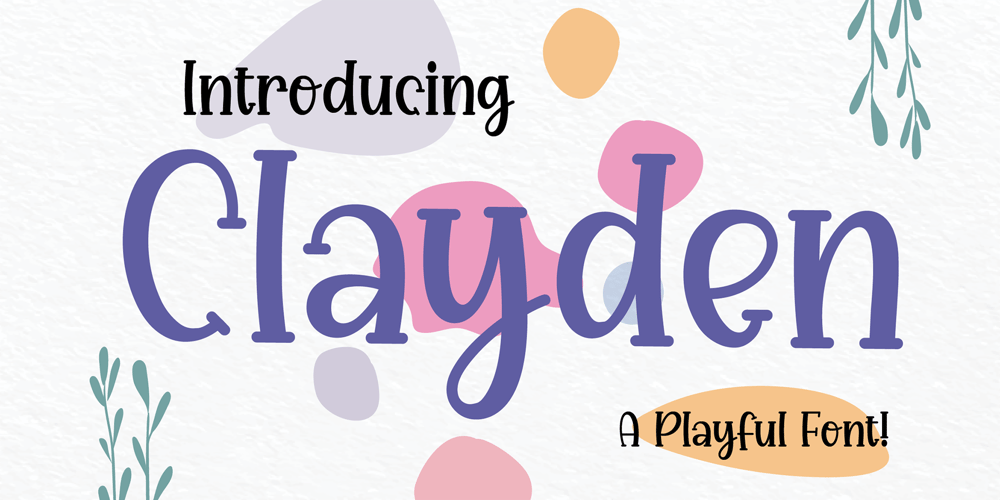
Clayden
Clayden font
Clayden Font Family was designed by Heri Imanudin and published by Krafted. Clayden contains 1 styles and family package options. If you’re after a font for a birthday party invitation or a children’s book cover, you shouldn’t settle for something bland and generic. Instead, why not aim for a fun and lively option to set the mood? Introducing Clayden – A Playful Font.A lovely font like this can be used for invitations, branding, print, clothing, social media, web pages, and much, much more.What you’ll get: Multilingual & Ligature Support Full sets of Punctuation and Numerals Compatible with: Adobe Suite Microsoft Office KeyNote Pages Software Requirements: The fonts that you’ll receive in the pack are widely supported by most software. In order to get the full functionality of the selection of standard ligatures (custom created letters) in the script font, any software that can read OpenType fonts will work. We hope you enjoy this font and that it makes your branding sparkle! Feel free to reach out to us if you’d like more information or if you have any concerns.